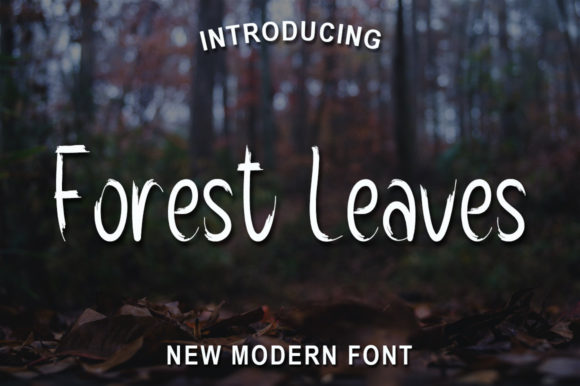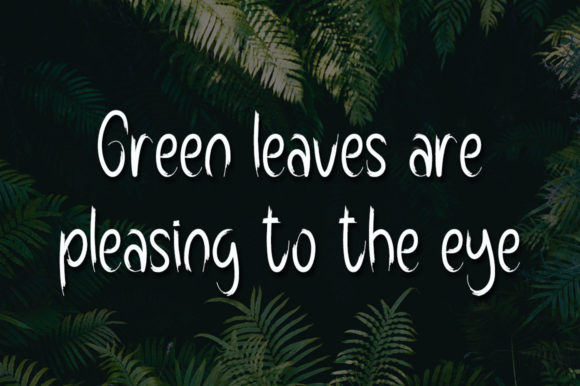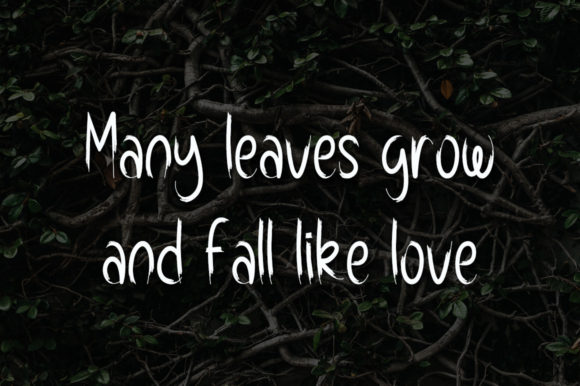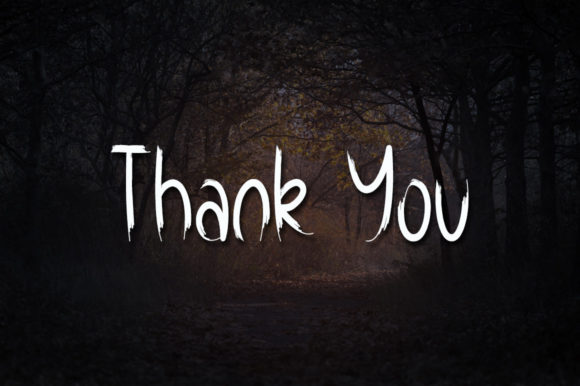
Forest Leaves Font
About Forest Leaves Font
Forest Leaves is a simple, adaptable and friendly handwritten font. Add this neat, cute and fun font to a wide range of creations. Simple but with a strong visual effect, this font will instantly make your creation more appealing than any others.